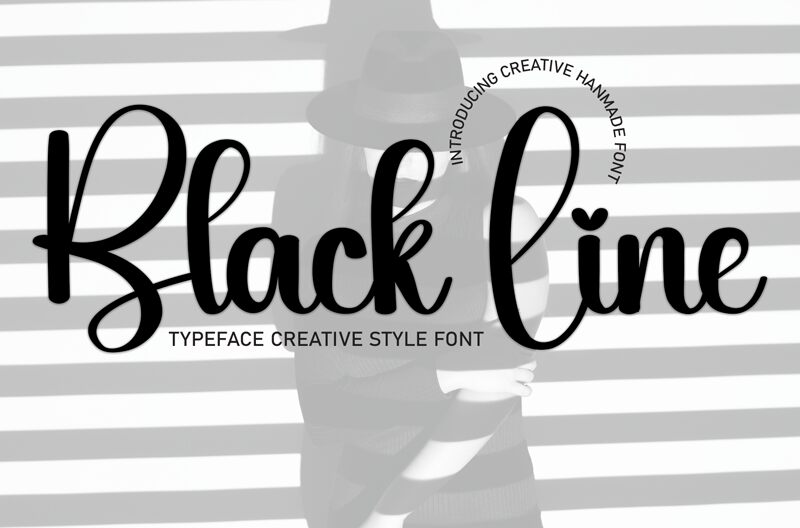
Black Line
Black Line is a captivating calligraphic font designed by Andi Moz. Its sweeping strokes and graceful curves evoke a sense of artistry and sophistication, making it a versatile choice for a wide range of design applications.
The fluid, script-like nature of the letters lends an organic, handcrafted feel to any text, while the bold, dramatic lines add a touch of elegance and refinement. Black Line's unique character shines through in its ability to seamlessly blend the traditional and the contemporary, making it a compelling option for everything from wedding invitations and luxury branding to editorial layouts and creative projects.